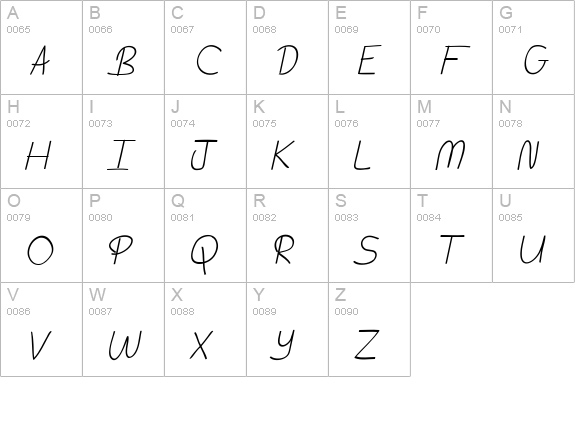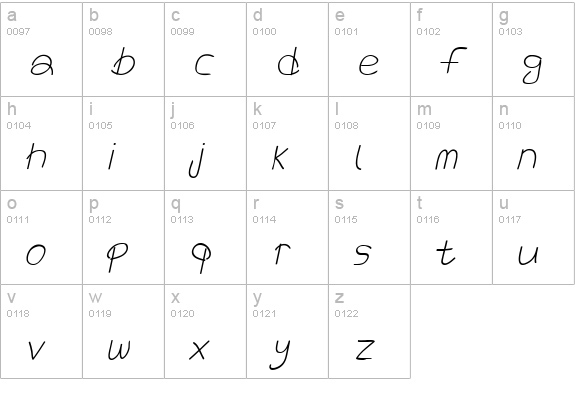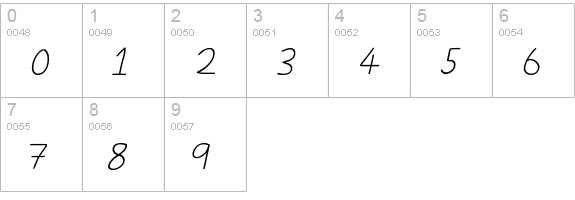
The Power Of Love Italic is a distinctive, italic variant in the The typeface family \xE2\x80\x94 well suited to design and typography projects.
The Power Of Love Italic font is a mesmerizing display of elegance and sophistication. Its graceful curves and delicate strokes exude a sense of romance and passion, making it the perfect choice for any project that aims to convey love, beauty, or tenderness. This font encapsulates the power of love, as every letter seamlessly flows into the next, creating a harmonious and captivating visual experience. It effortlessly captures the essence of affection and warmth, making it an ideal choice for wedding invitations, love letters, or any design that seeks to celebrate the bond between two hearts. The Power Of Love Italic font's versatility knows no bounds. It can effortlessly transform any ordinary text into a work of art, adding a touch of elegance and sophistication to any project. Whether it's used for branding, logo design, or editorial purposes, this font is sure to leave a lasting impression. One of the most remarkable aspects of The Power Of Love Italic font is that it is freely available to download at FontsMarket.com. This means that anyone can access this extraordinary font and incorporate it into their designs without any cost. This availability ensures that the power of love can be shared and celebrated by all, without any barriers or limitations. So, whether you're a professional designer looking for a font that can convey the depth of emotion or an individual seeking to add a touch of romance to a personal project, The Power Of Love Italic font is the perfect choice. With its captivating beauty and the fact that it is freely available to download at FontsMarket.com, it is a font that truly embodies the power and essence of love.